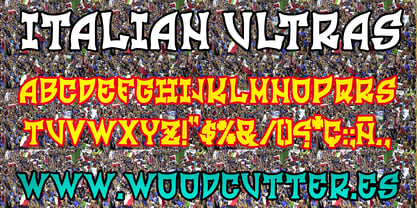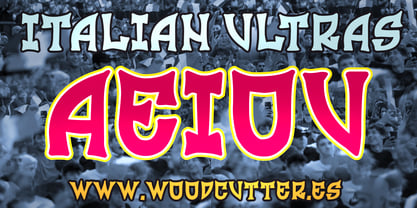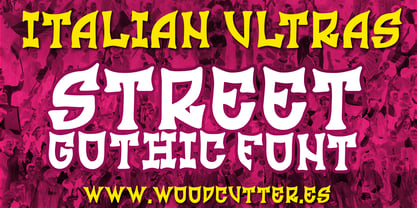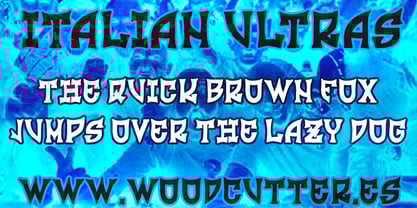
Italian Ultras
by Woodcutter
The Italian Ultras Font Family was designed by Jordi Manero and published by Woodcutter. Italian Ultras contains 1 styles. More about this family
"Italian Ultras" is an uppercase font with a modern gothic style, paying homage to the iconic letters used in banners and tifos by ultras in Italian football stadiums. Featuring solid lines, sharp angles, and a robust design, it conveys strength, passion, and the rebellious aesthetic characteristic of football culture. Its characters strike a balance between traditional and contemporary, making it perfect for sports-related projects, bold posters, or urban themes. The font includes distinctive details that evoke the intensity and spirit of the stands, creating a unique visual tribute to the world of football fandom.
Designers: Jordi Manero
Foundry: Woodcutter